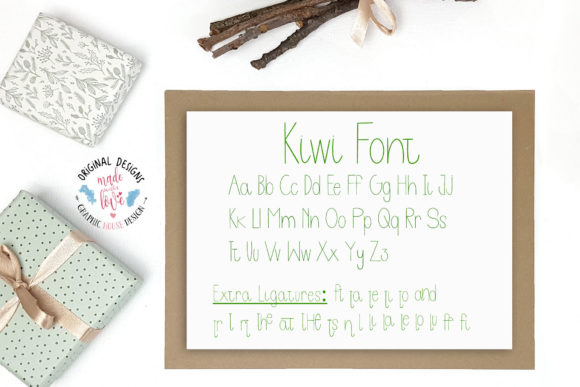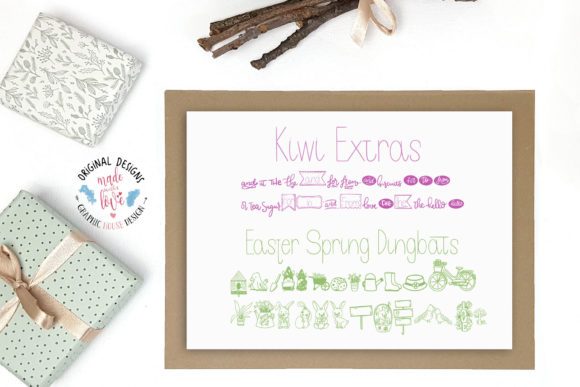
Introduction to Kiwi Font
Kiwi Font is a playful and clean sans serif font, that can be used for all kinds of fun projects.
It features extra elements designed to embellish your projects with more decorative elements Add it confidently to your projects, and you will love the results.
Key Features of Kiwi Font